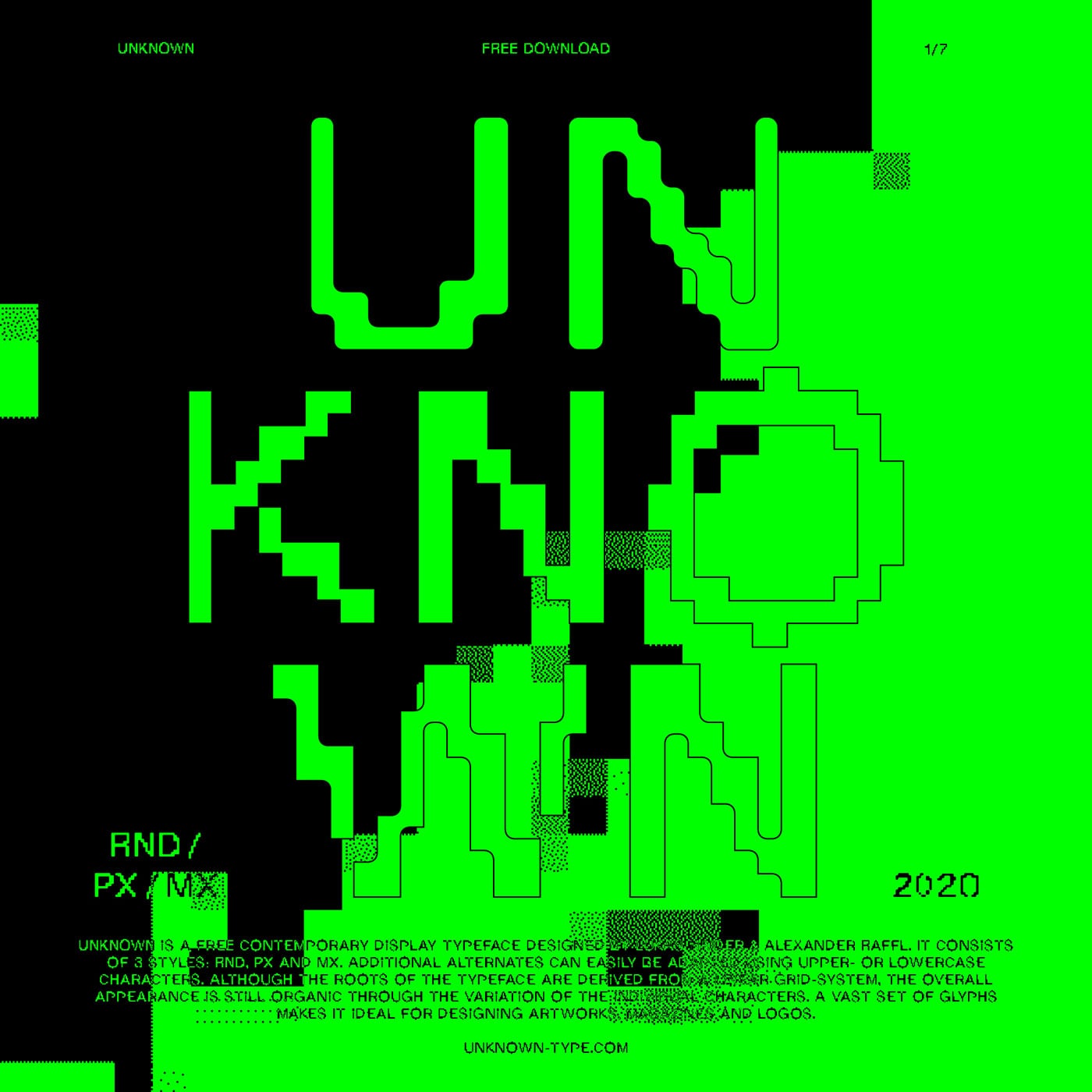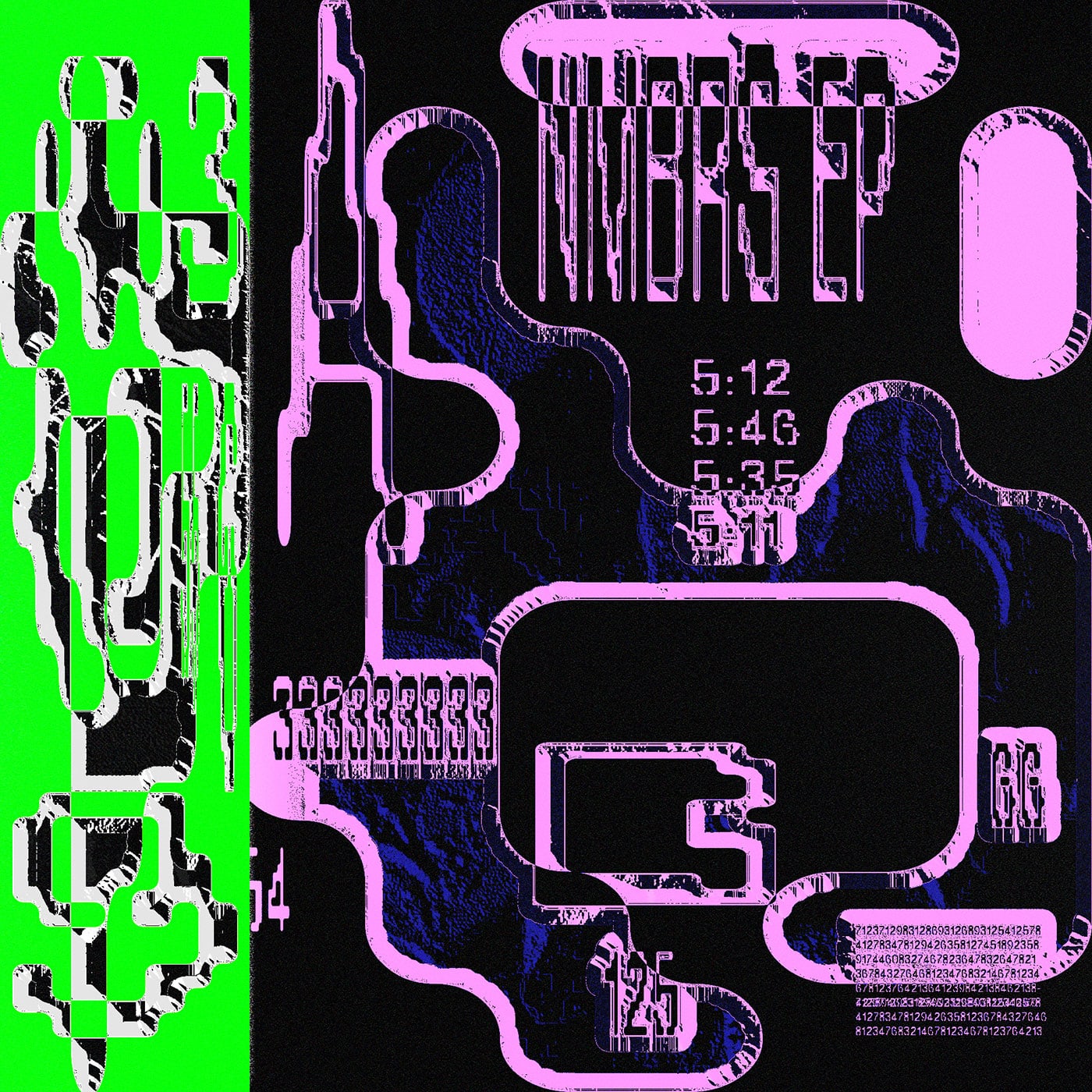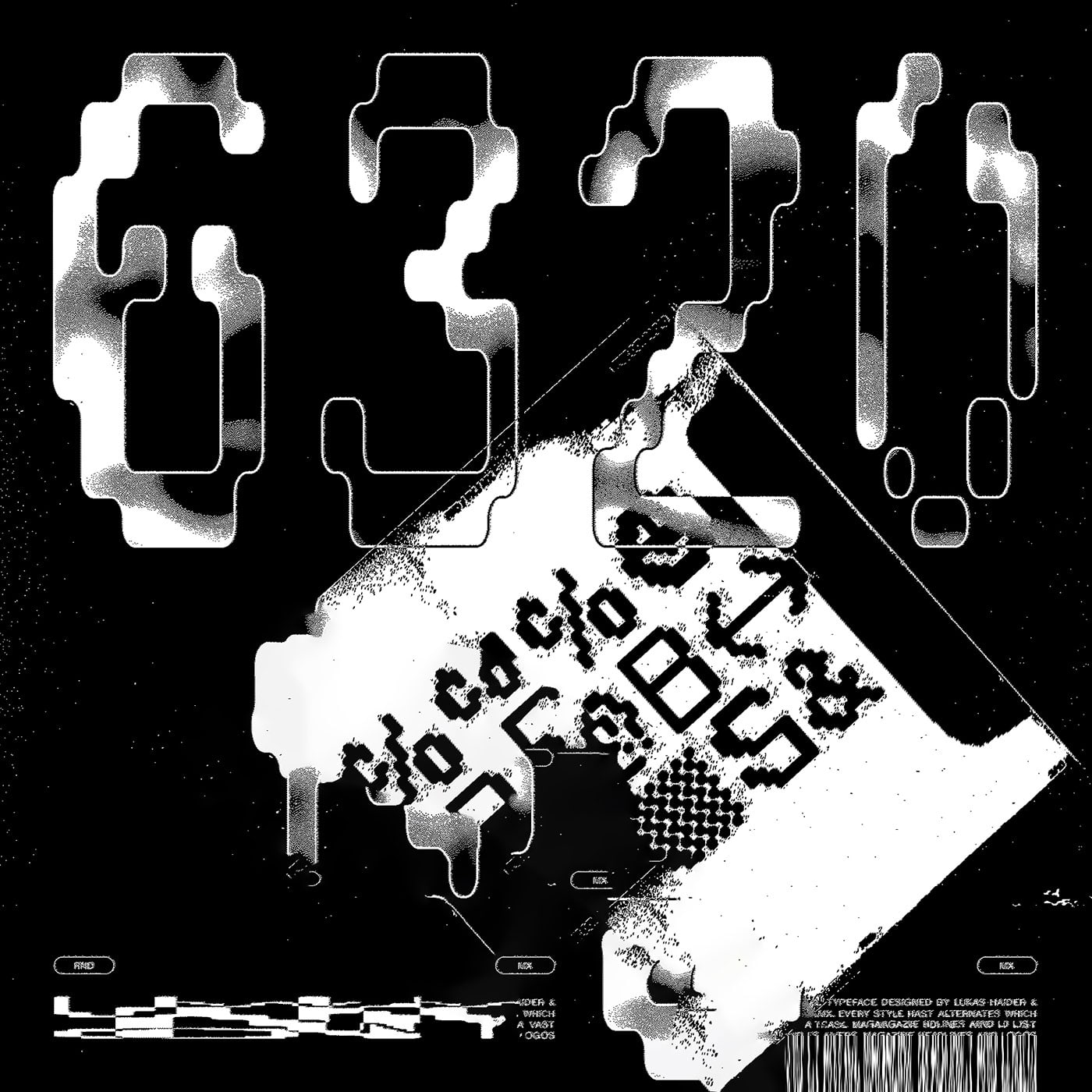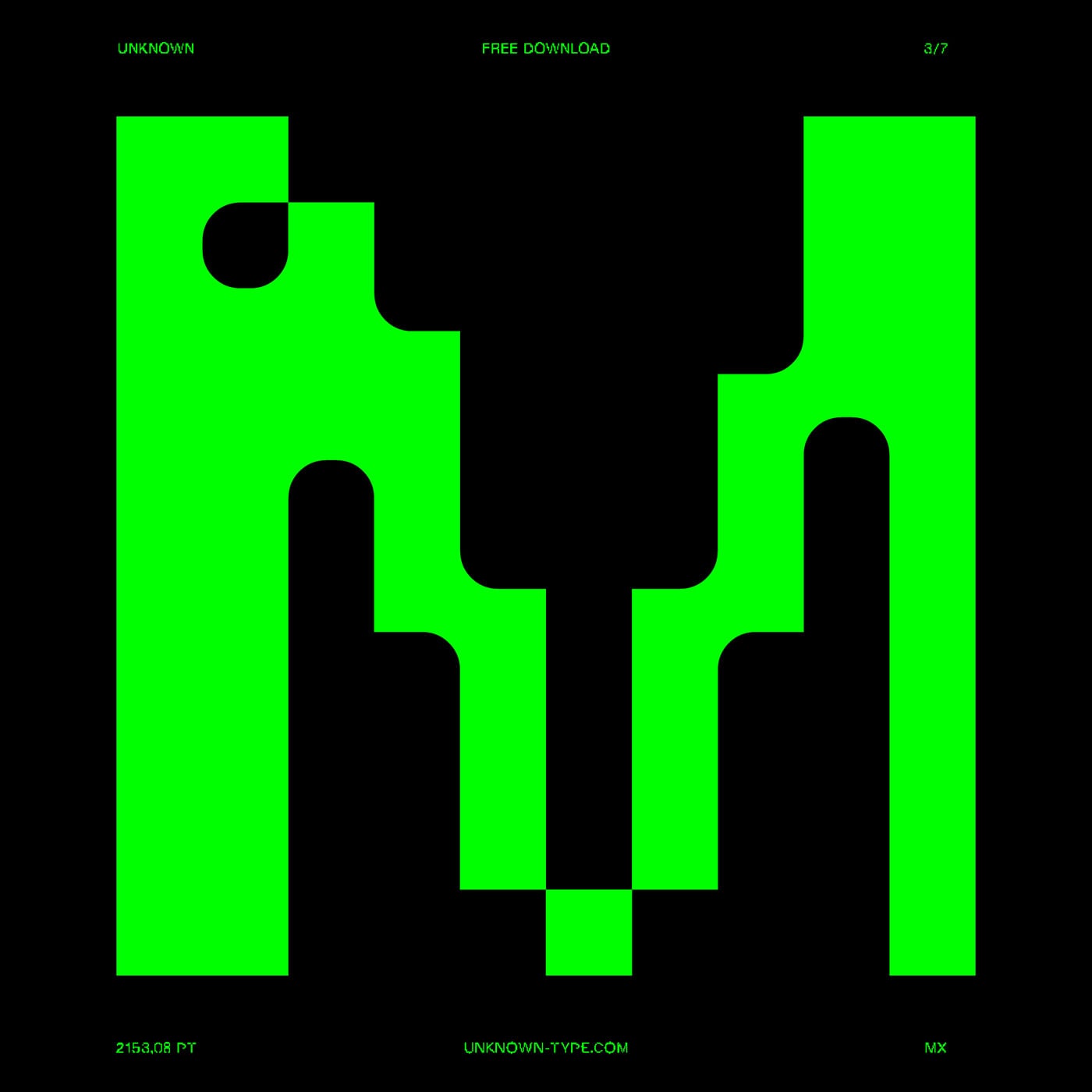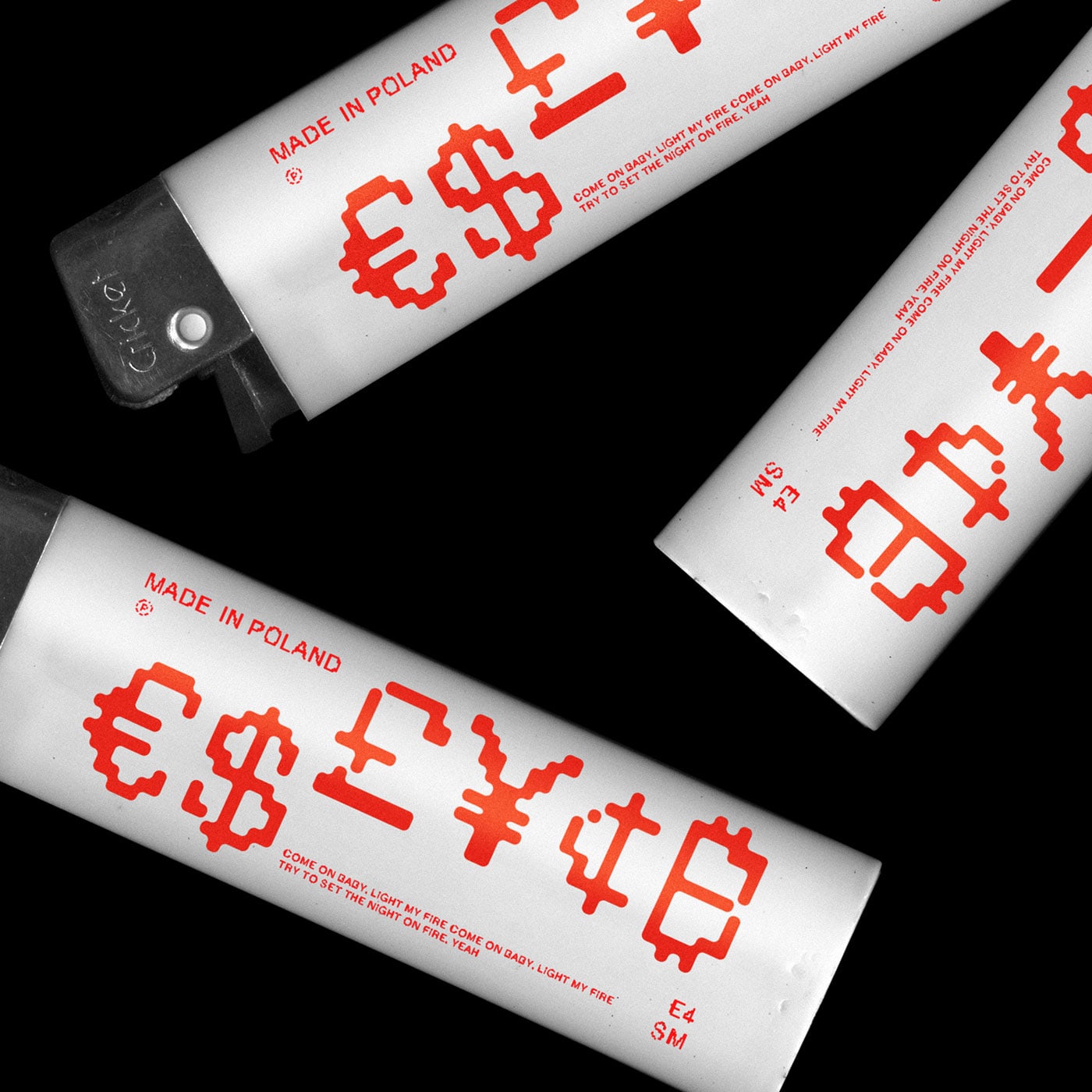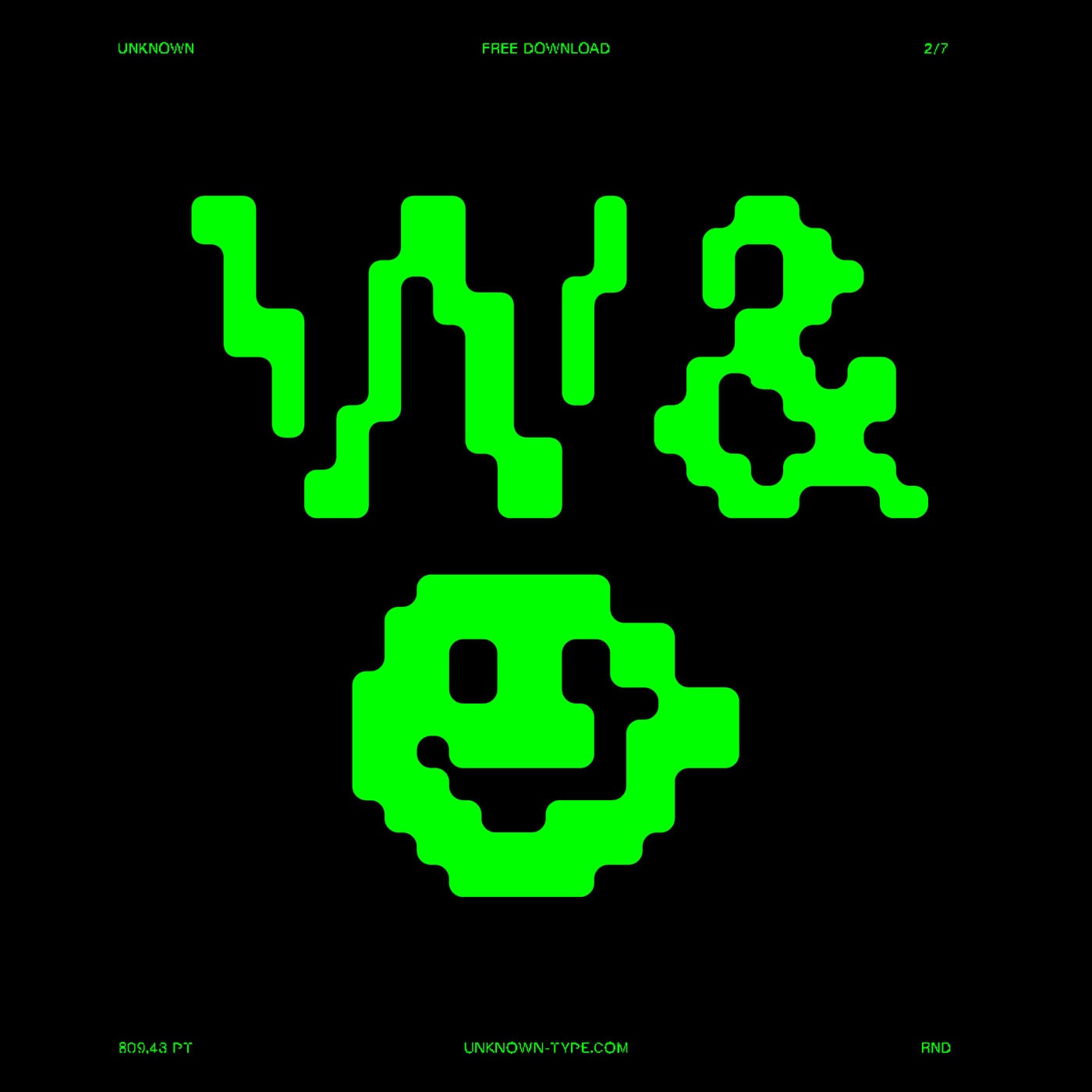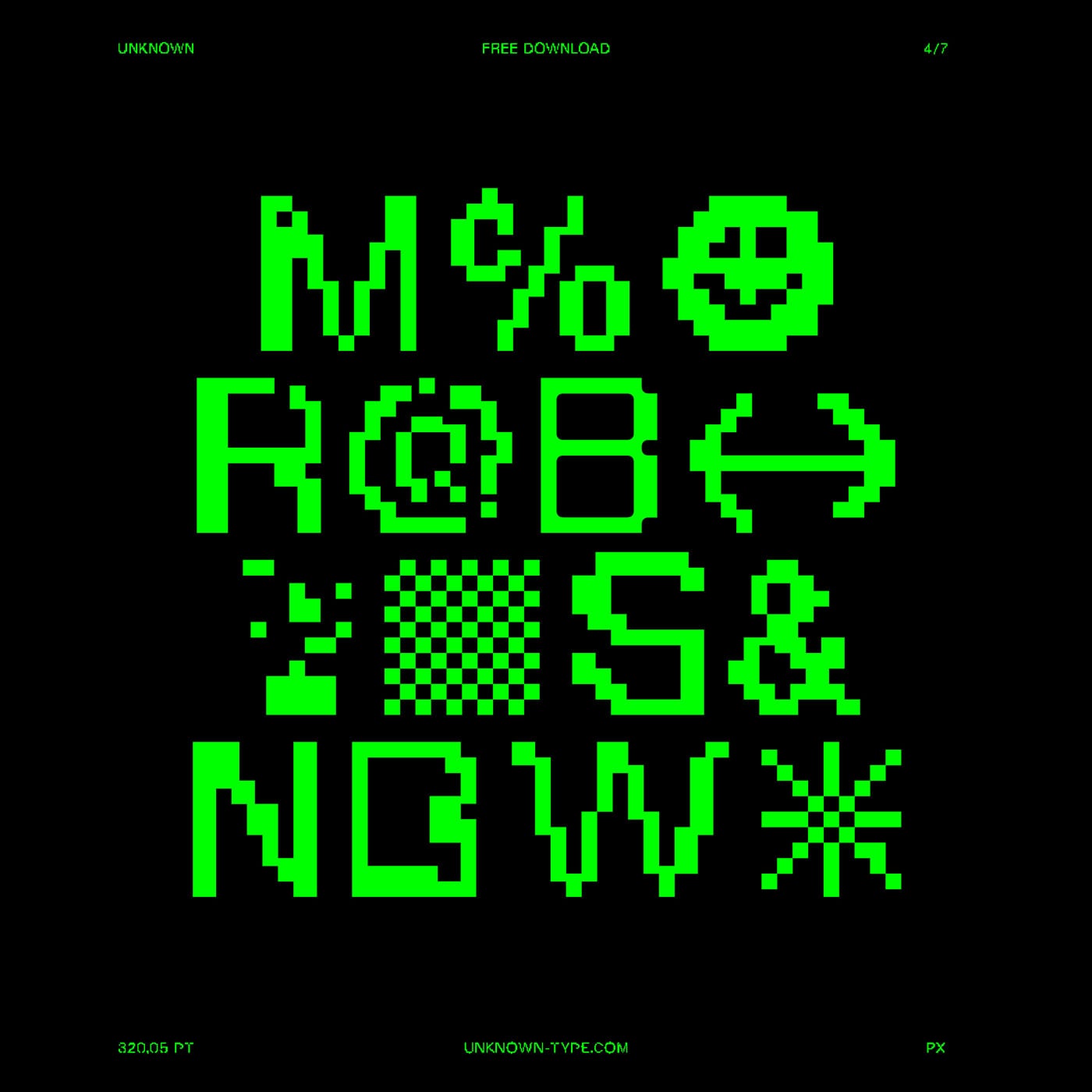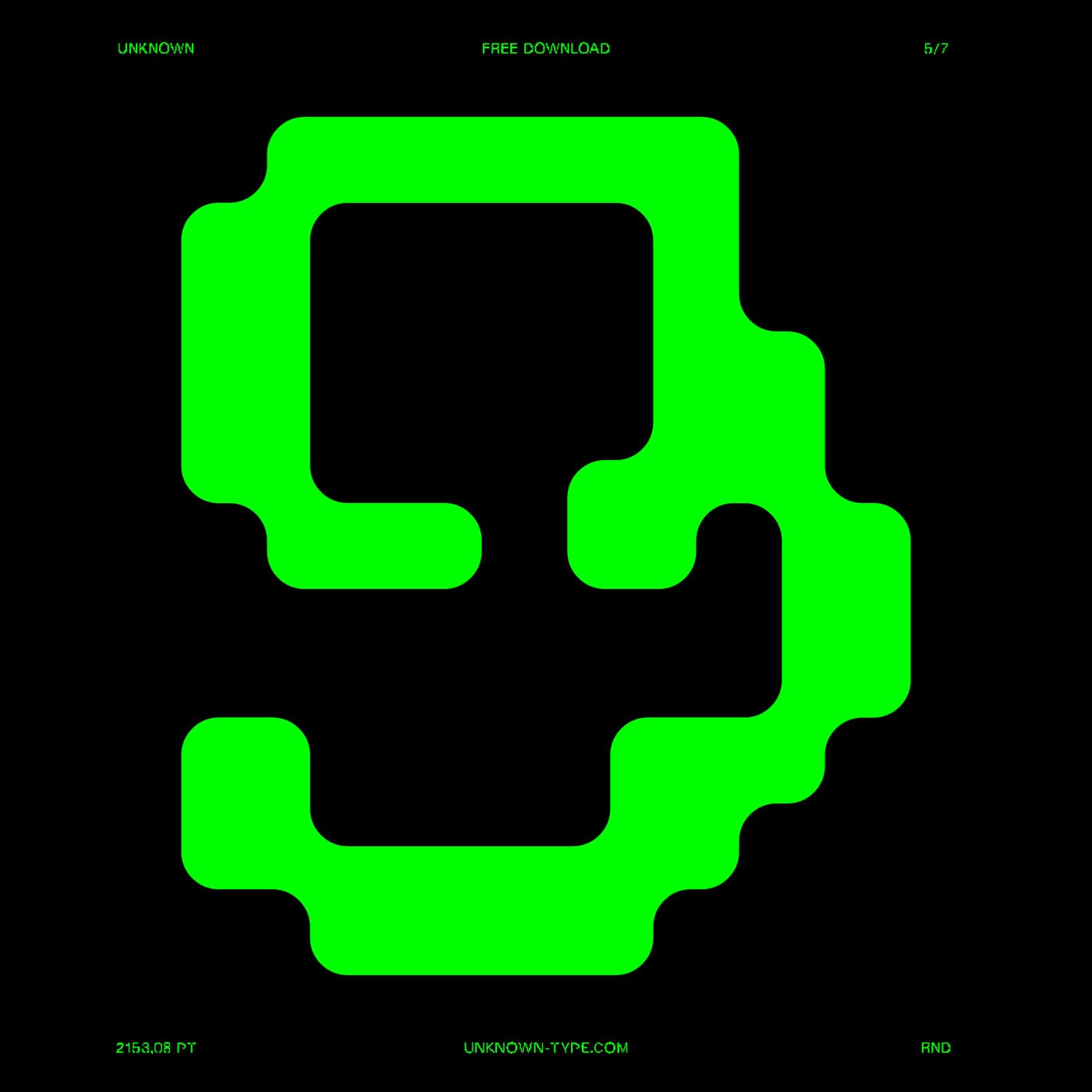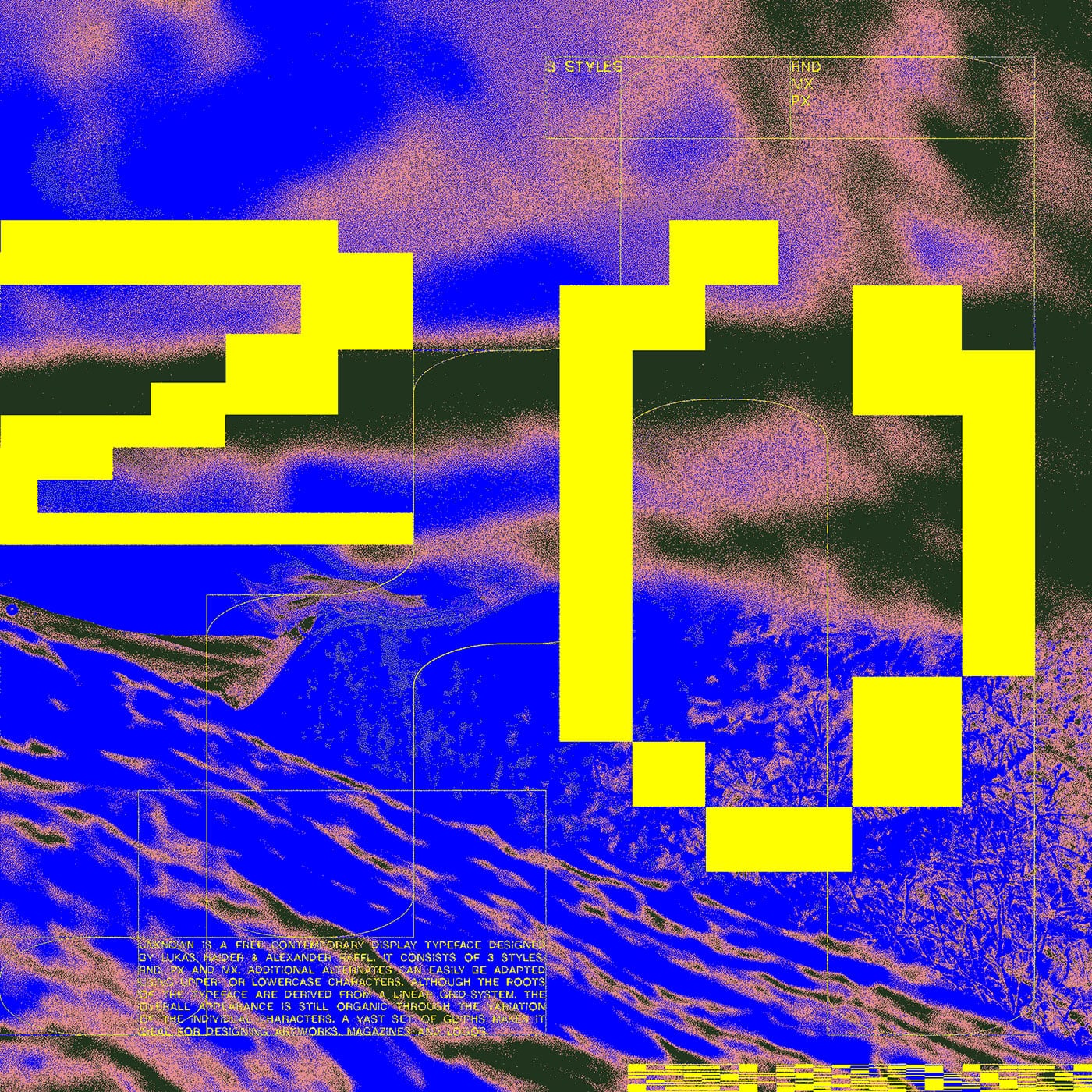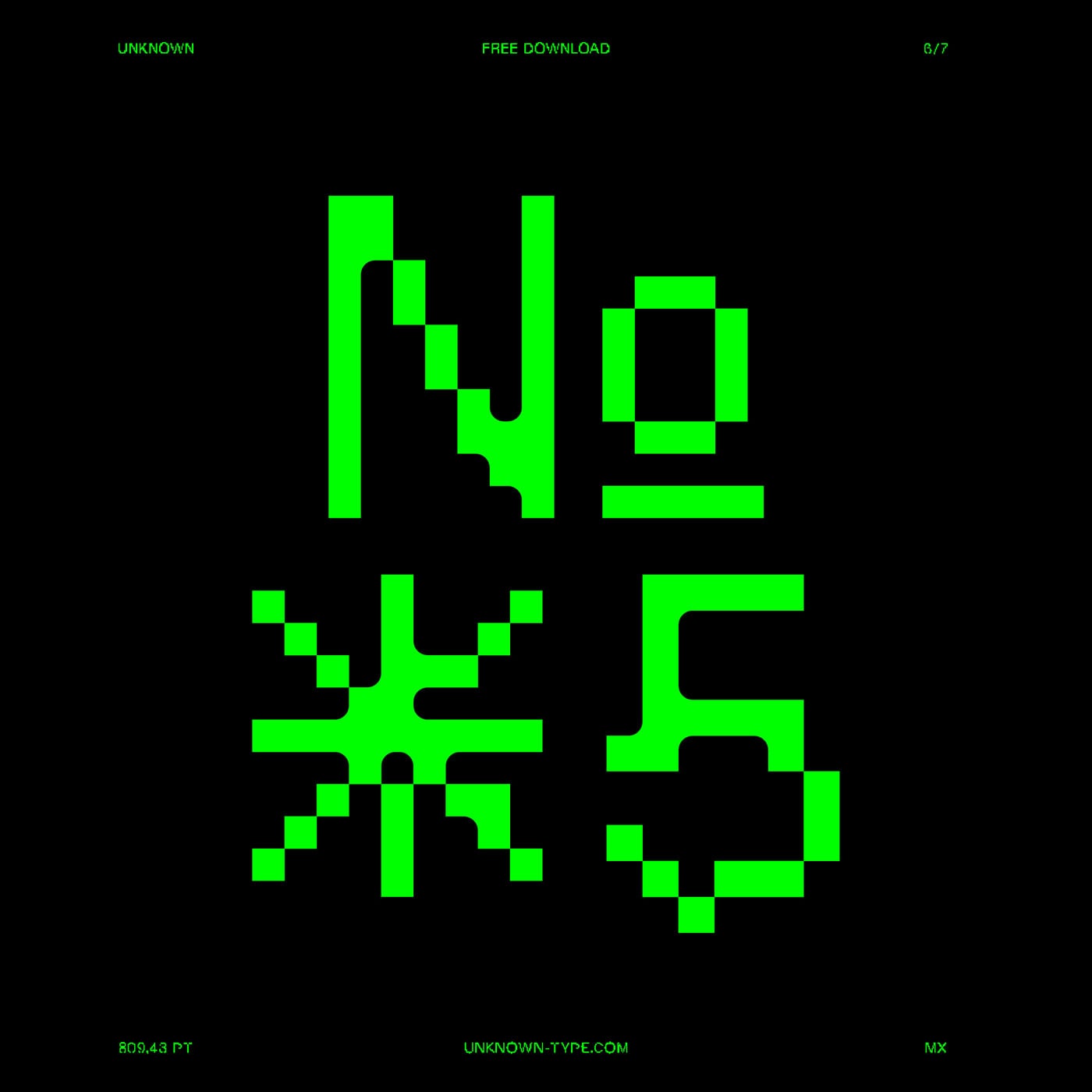
UNKNOWN is a free contemporary display typeface designed by Lukas Haider & Alexander Raffl. It consists of 3 styles: RND, PX and MX. Additional alternates can easily be adapted using upper- or lowercase characters. Although the roots of the typeface are derived from a linear grid-system, the overall appearance is still organic through the variation of the individual characters. A vast set of glyphs makes it ideal for designing artworks, magazines and logos.